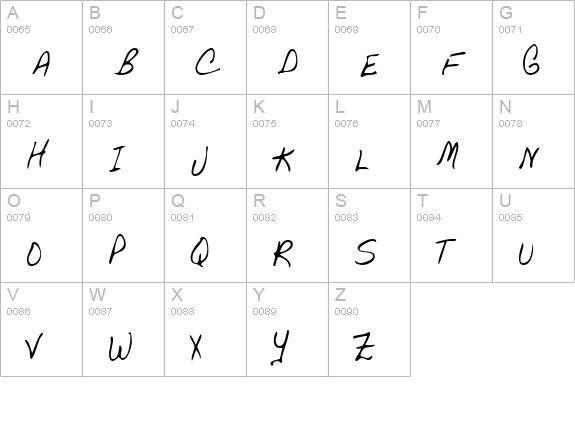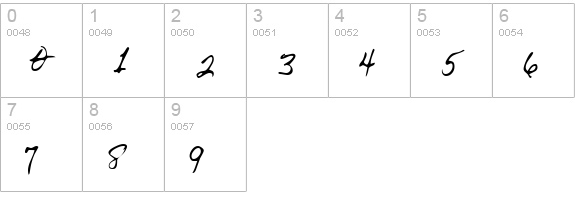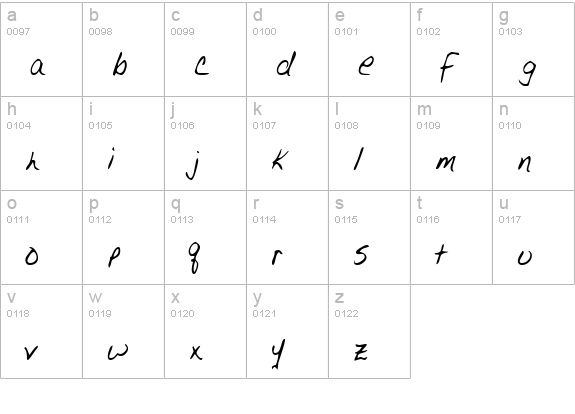
UrsasHand Regular Font Details
UrsasHand Regular is the standard, neutral variant in the UrsasHand typeface family \xE2\x80\x94 well suited to general body text, paragraphs, and standard typographic work.
UrsasHand Regular font is a beautiful and versatile typeface that effortlessly captures the essence of handwritten elegance. With its smooth curves and authentic brush strokes, this font brings a sense of warmth and personality to any design project. Ideal for various creative endeavors, UrsasHand Regular font is perfect for adding a personal touch to invitations, greeting cards, logos, and more. Its balanced letterforms and stylish flourishes make it an excellent choice for both formal and informal settings. What makes UrsasHand Regular font even more appealing is the fact that it is freely available to download at FontsMarket.com. This means that you can easily access this stunning font without any cost or hassle. Whether you are a professional designer or someone looking to enhance their personal projects, UrsasHand Regular font is a valuable resource that will elevate your work to new heights. Don't miss out on the opportunity to incorporate this delightful font into your designs. Download UrsasHand Regular font today from FontsMarket.com and unlock a world of creativity and artistic expression.